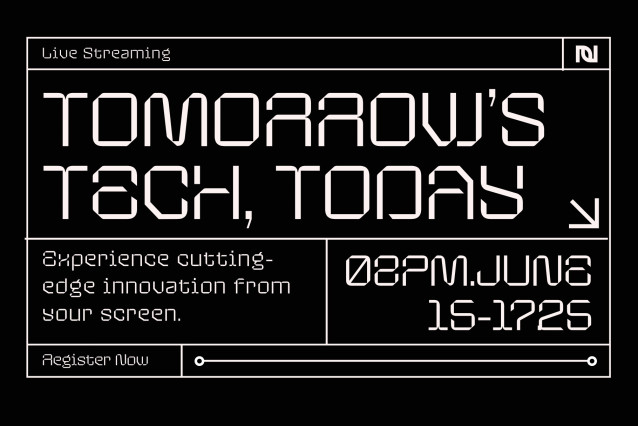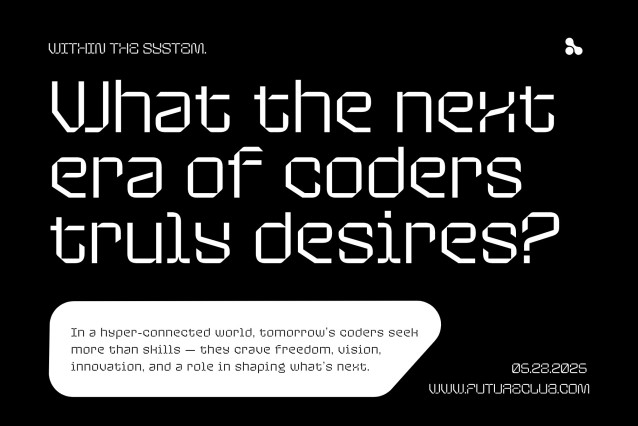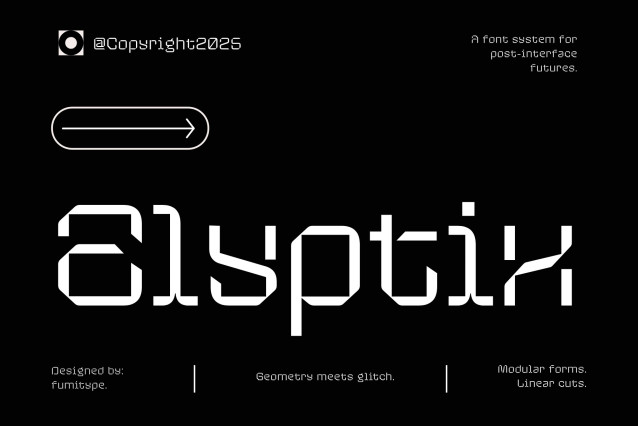
Elyptix Font is a futuristic display typeface where geometry meets glitch. With modular forms, sharp linear cuts, and a digital-inspired rhythm, it embodies the aesthetics of post-interface design. Ideal for sci-fi branding, tech interfaces, gaming visuals, and experimental projects, Elyptix brings a bold, forward-looking voice to any creative work.